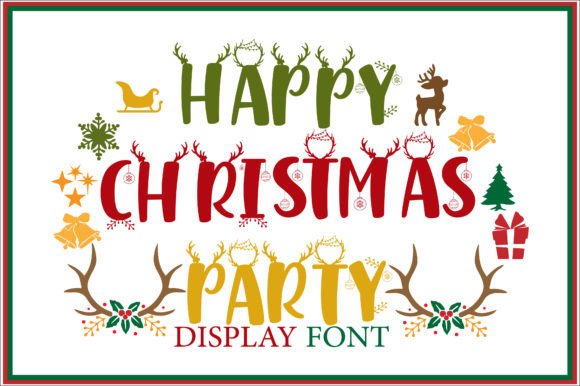
Unveil the wonder of the festive season with the captivating Happy Christmas Party font – a beautiful decorative font designed to ignite the spirit of joy and cheer.
Step into a realm of typographic enchantment, where letters dance with delight and every word is a celebration. Let this font ignite your creativity and transform your design projects into festive masterpieces.
Whether you're crafting enchanting posters, playful flyers, captivating social media graphics, or adding a touch of holiday charm to your website, the Happy Christmas Party font is your perfect companion. Its unique and whimsical characters will elevate your designs, making them stand out from the crowd.
With its charming curves and cheerful strokes, this font embodies the magic of the holiday season. Its enchanting appearance is sure to captivate your audience, spreading joy and merriments with every word.
From whimsical invitations to heartfelt holiday greetings, let the Happy Christmas Party font add a sprinkle of festive magic to your creations. It's the perfect choice for spreading holiday cheer, creating everlasting memories, and capturing the spirit of the season.